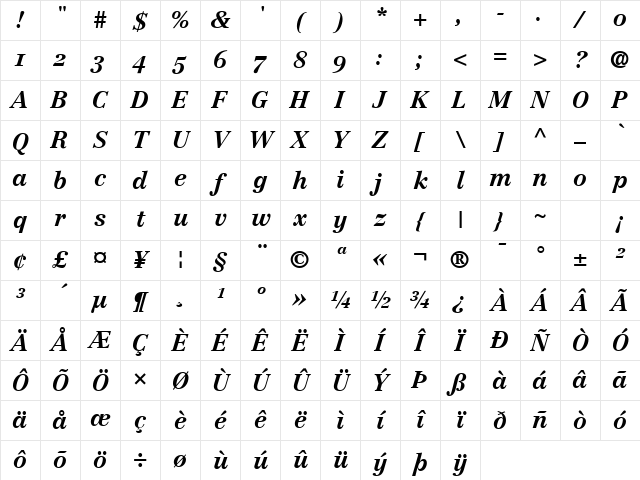
Complete Century Reprise OldStyle SSi Bold glyph index. Displaying only characters natively supported by Century Reprise OldStyle SSi Bold font.
Century Reprise OldStyle SSi carries the refined structure of traditional serif typography, with bracketed terminals and considered proportions that communicate credibility and craft. Its bold stroke weight gives it real presence on the page.